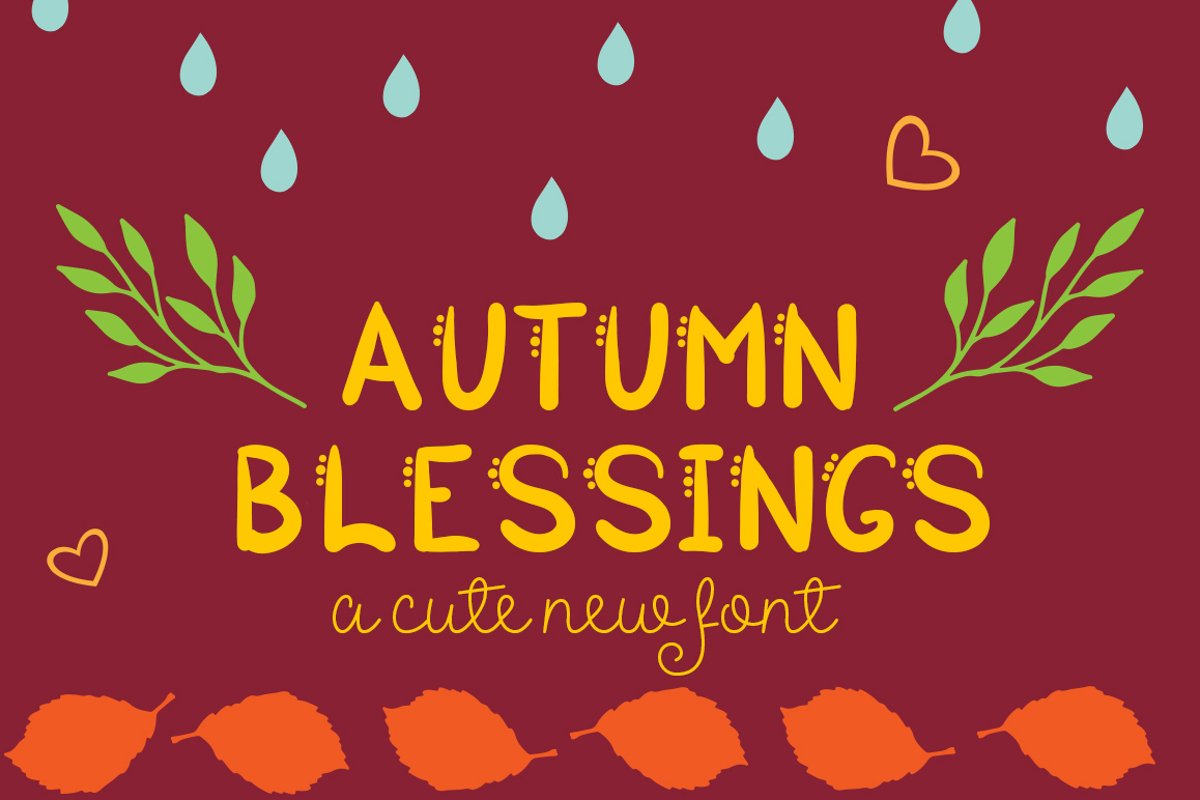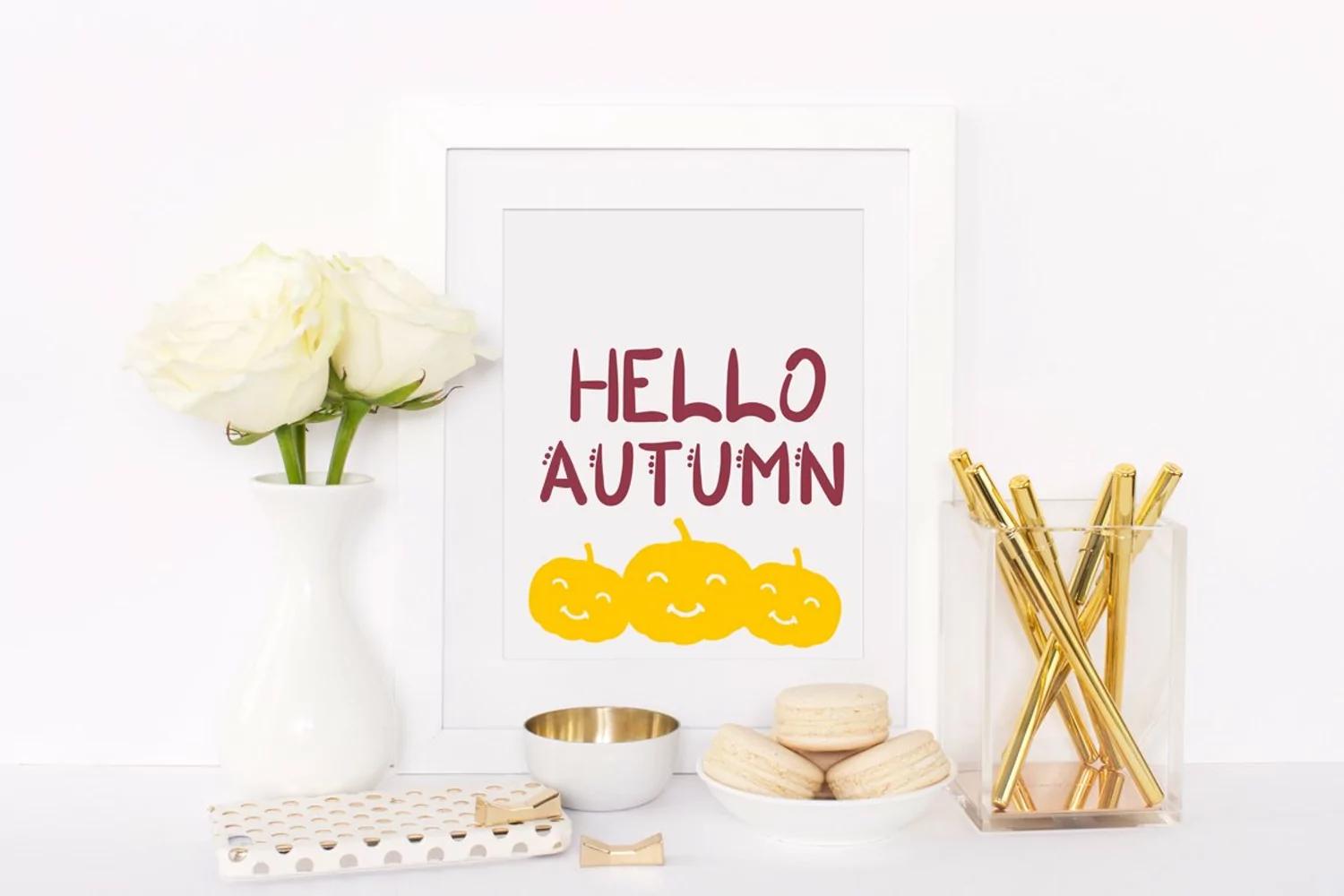
Autumn Blessings
In the download you get two fonts in one – a simple sans serif and an
ornamental sans serif.
It comes with uppercase letters, ornamental
uppercase, numbers 0-9 and punctuation!